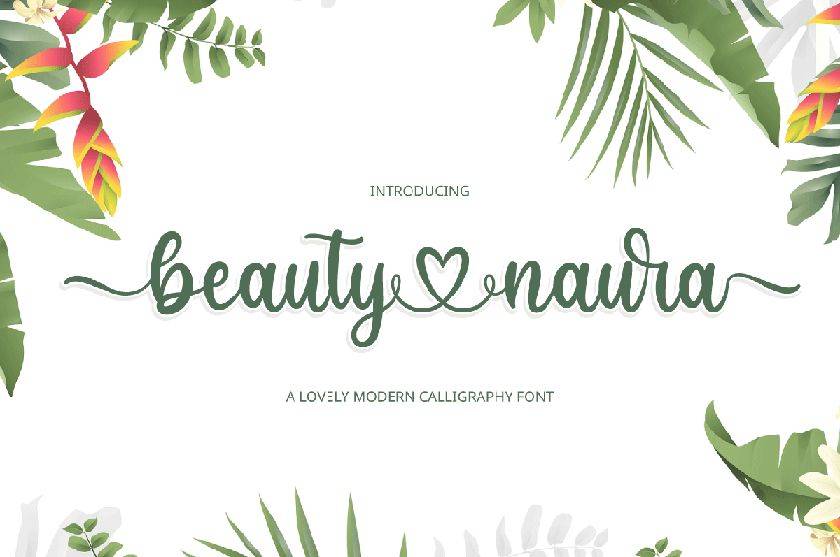
Beauty Naura is a charming handwritten script font with a playful and elegant feel, featuring smooth, flowing strokes and a lively, casual style. Its moderate contrast and slightly condensed letterforms make it ideal for creative branding, invitations, and feminine packaging where a personal, friendly touch is desired. This font shines in display uses like logos and headlines, adding warmth and personality without sacrificing readability.
Beauty Naura Font
About Beauty Naura Font
| Font family | Beauty Naura Font |
| Designer | Letter art Studio |